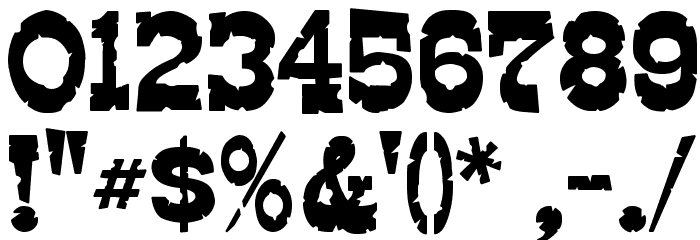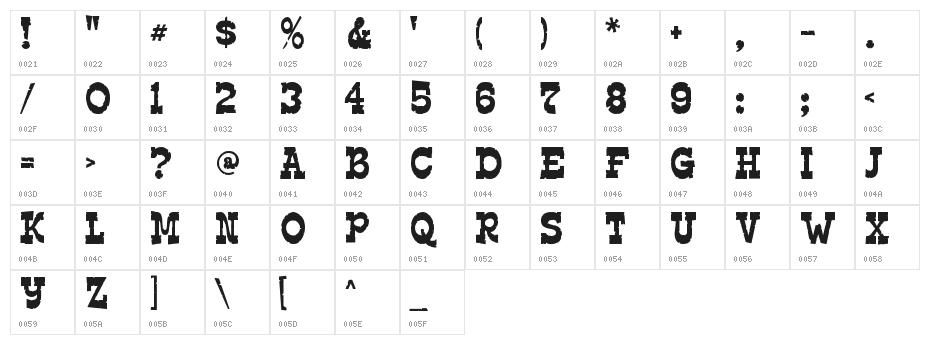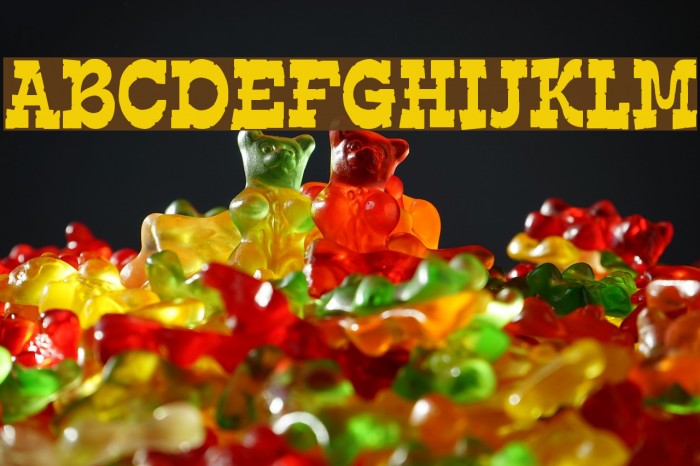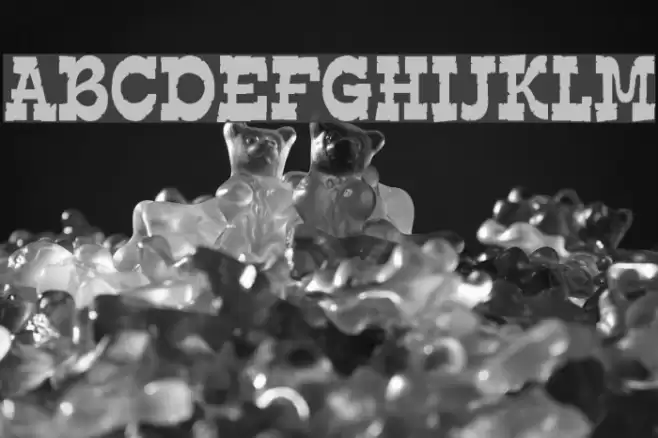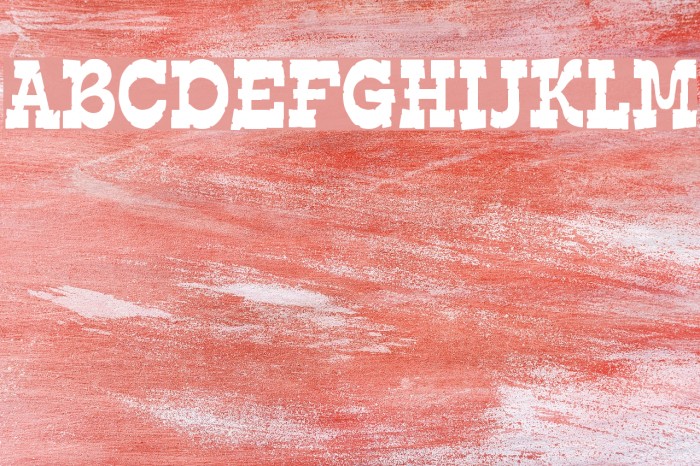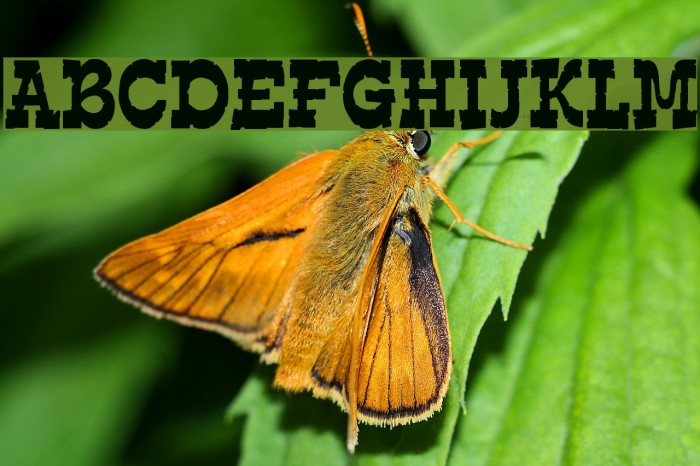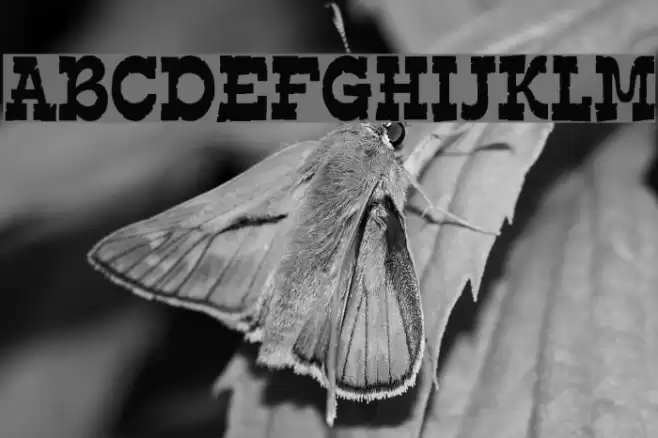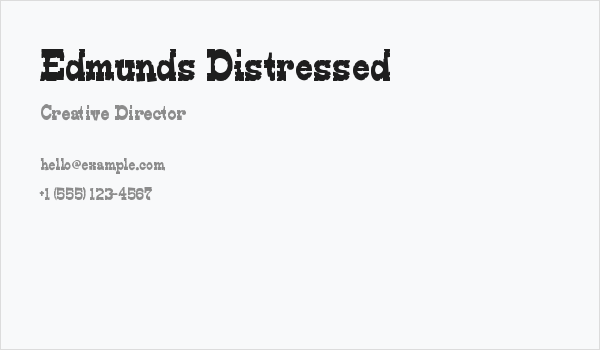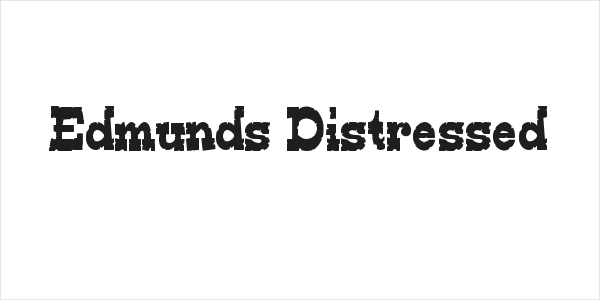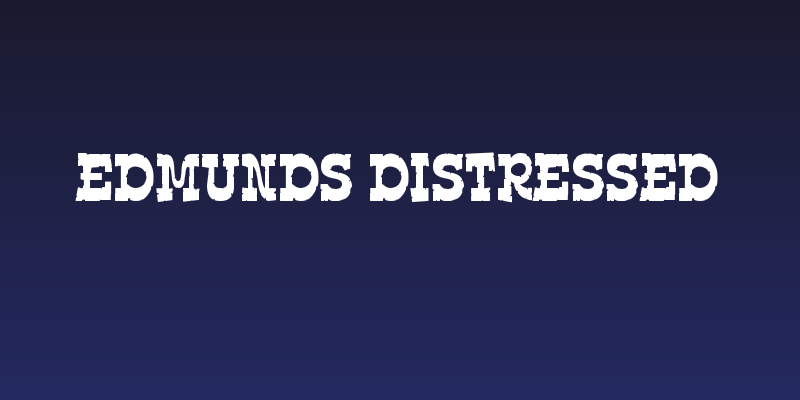
Edmunds Distressed Font
Edmunds Distressed Description
This font features a bold, distressed style with a rugged, textured appearance. The characters are heavily stylized, giving them a worn and vintage look, reminiscent of old printing techniques or weathered signage. The uppercase and lowercase letters maintain a consistent boldness, while the numbers and special characters follow the same distressed pattern. This font's unique texture adds a sense of depth and character, making it stand out in any design. The rough edges and irregularities in the strokes contribute to its overall rustic charm.
| Proposed Projects | Ideal for projects requiring a vintage or rustic aesthetic, such as posters, branding for artisanal products, or themed event invitations. |